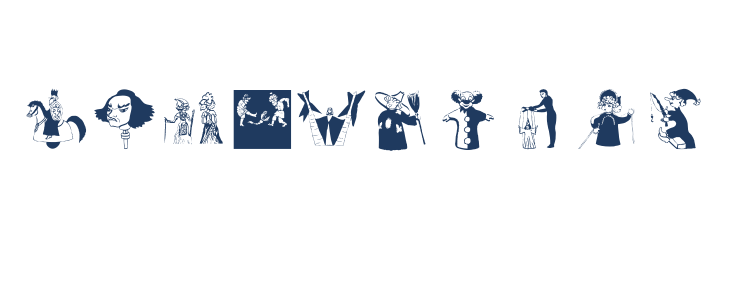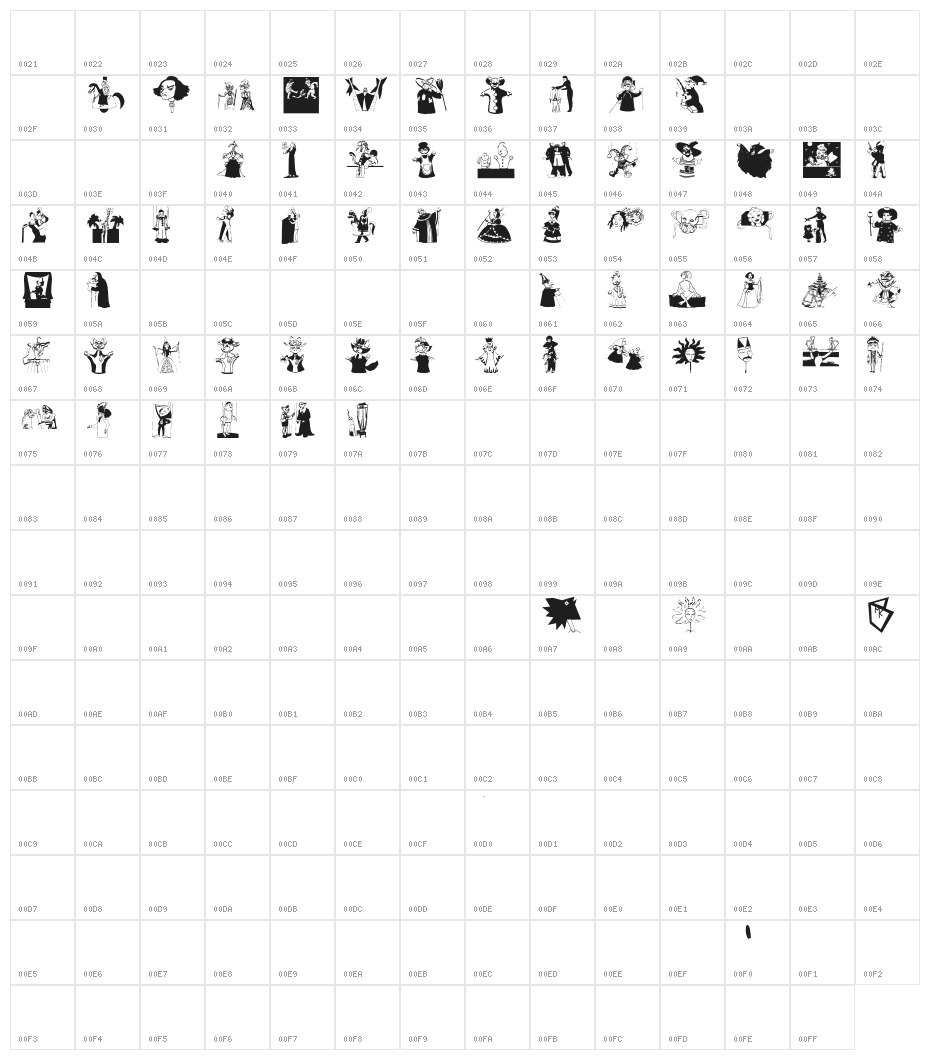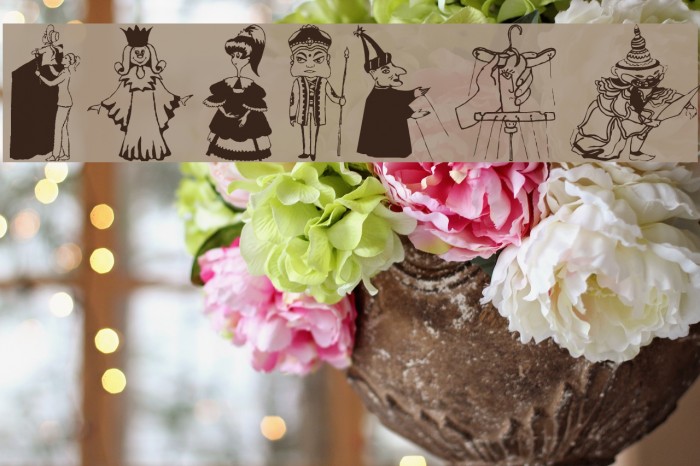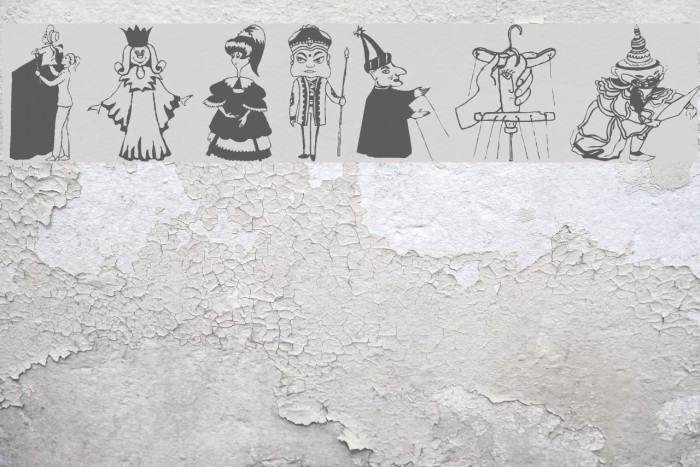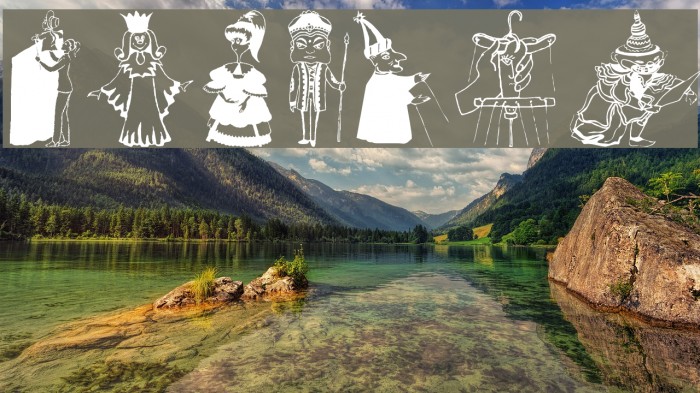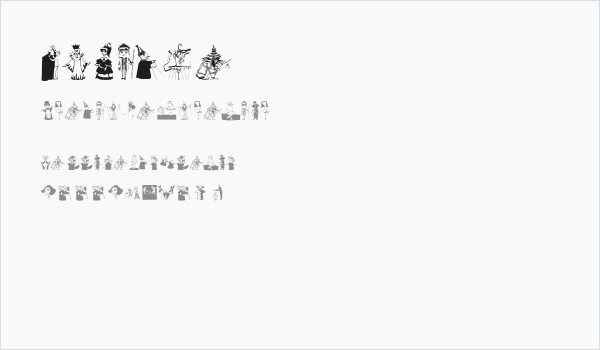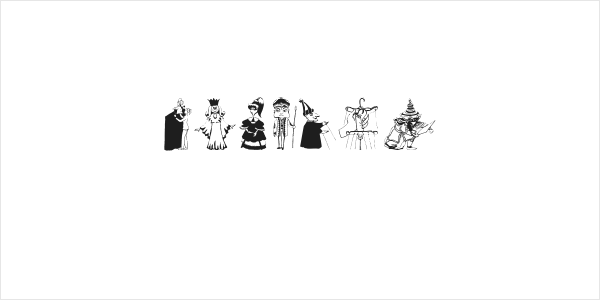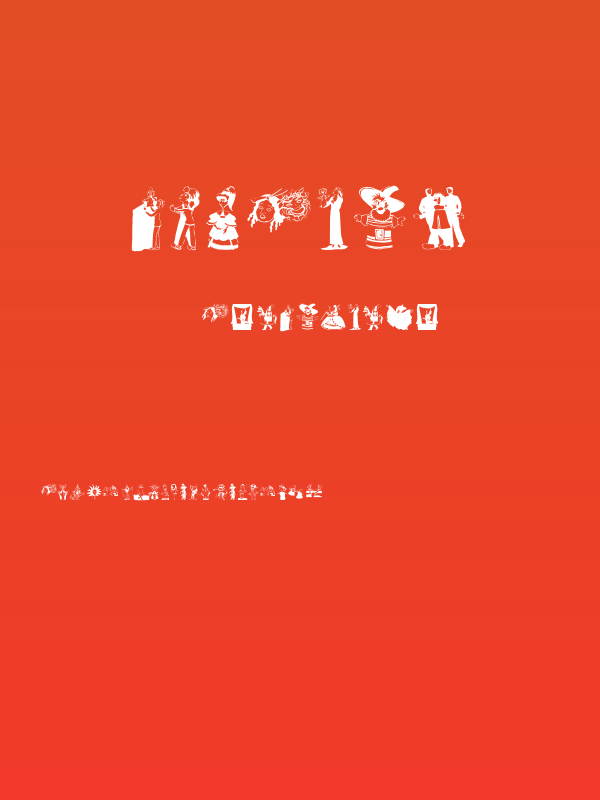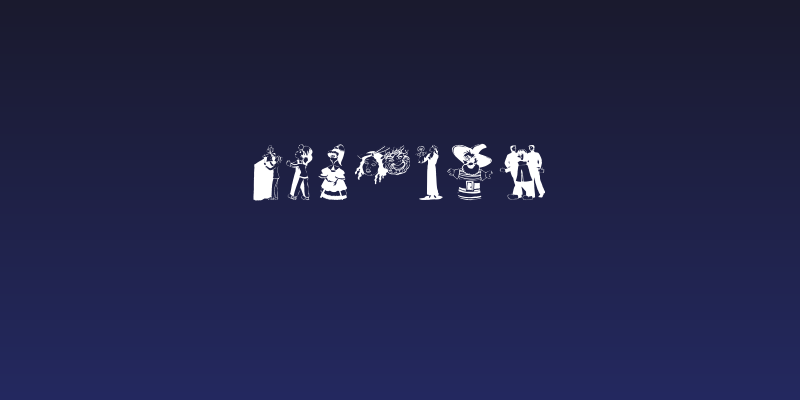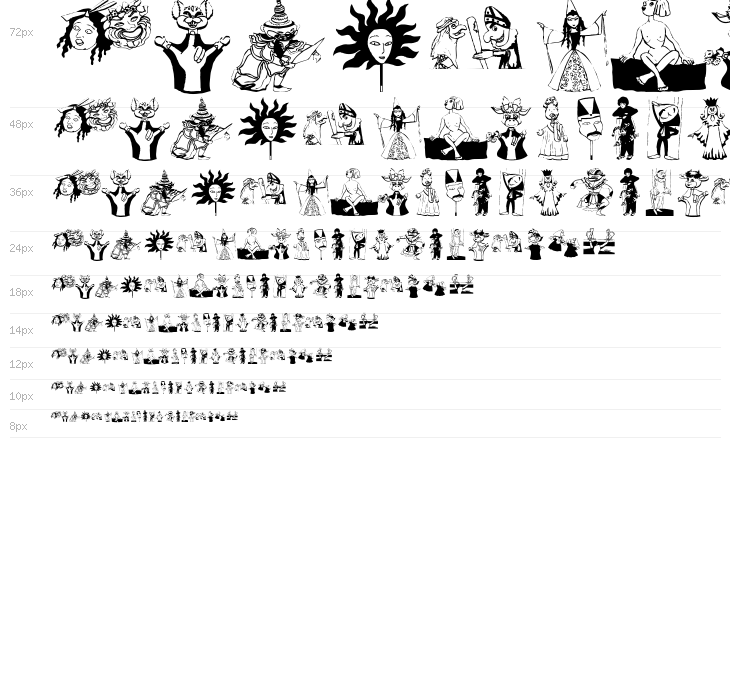
OnStage Font
This is a decorative and playful font featuring theatrical and whimsical characters. Each letter is represented by a unique illustration, depicting various performers and stage elements. The characters are detailed and expressive, capturing a sense of drama and entertainment. This font is highly stylized, with each character telling its own story, making it ideal for creative and artistic projects. The illustrations are bold and intricate, ensuring they stand out in any design. The overall style is imaginative and theatrical, perfect for adding a touch of flair and creativity.
| Proposed Projects | Ideal for theater posters, creative invitations, children's books, and artistic branding. |